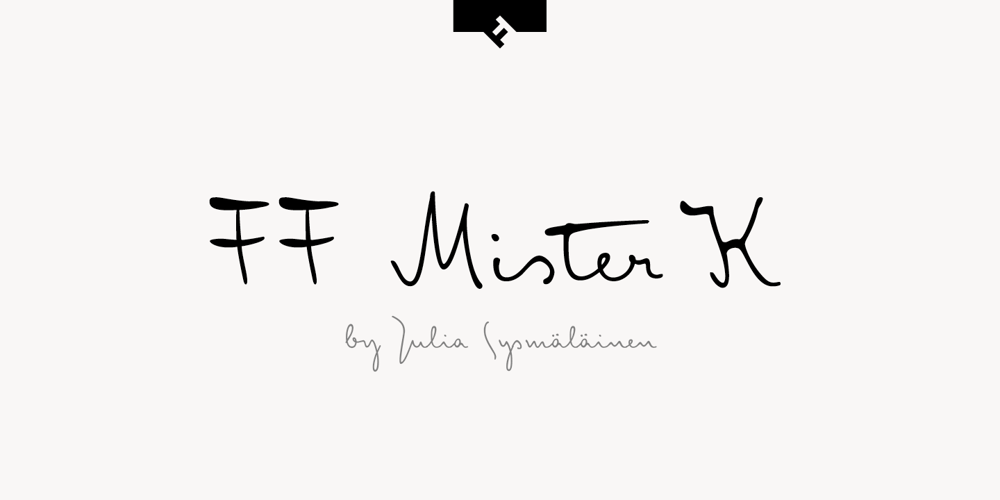
FF Mister K Font Family was designed by Julia Sysmäläinen and published by FontFont. FF Mister K contains 7 styles and family package options. Finnish type designer Julia Sysmäläinen created this script FontFont inspired by Franz Kafka’s manuscripts in 2008. The family contains several styles and is ideally suited for unique visual identities, festive occasions, music and nightlife as well as software and gaming. FF Mister K provides advanced typographical support with features such as ligatures, alternate characters, case-sensitive forms, fractions, super- and subscript character, and stylistic alternates. This FontFont is a member of the FF Mister K super family, which also includes FF Mister K Dingbats, FF Mister K Informal, and FF Mister K Splendid. Find more information on FF Mister K’s very own Website ffmisterk.com.